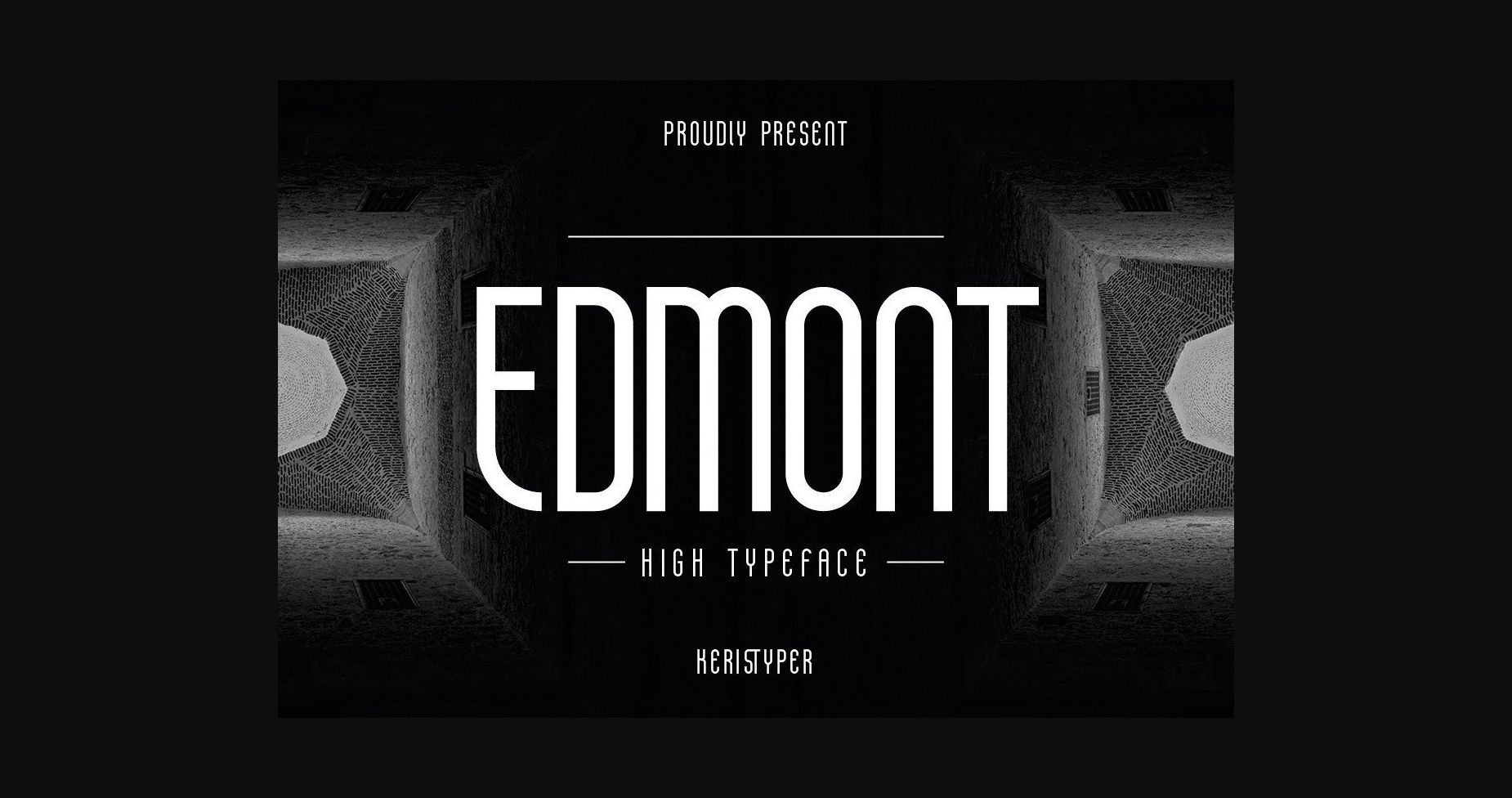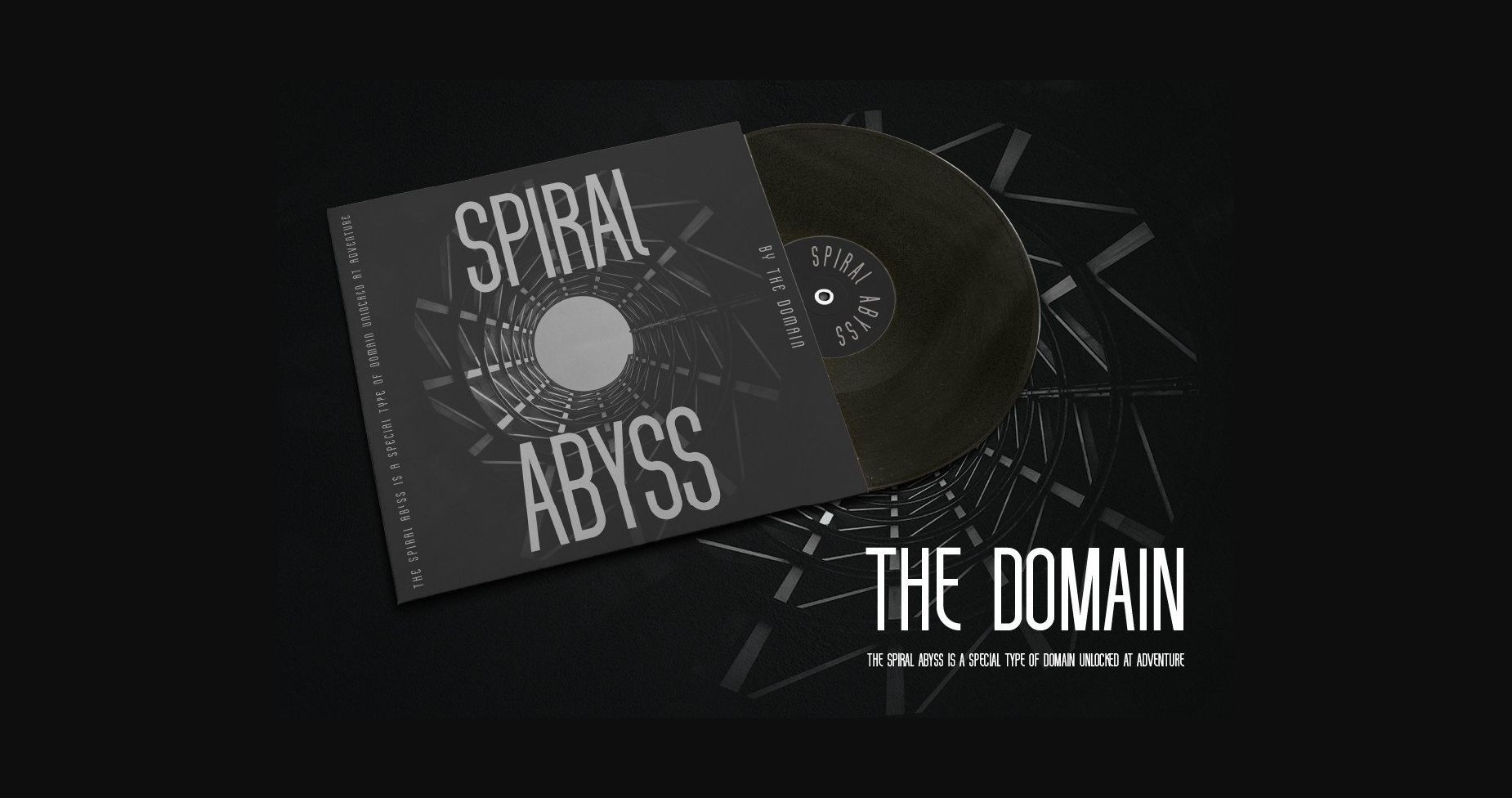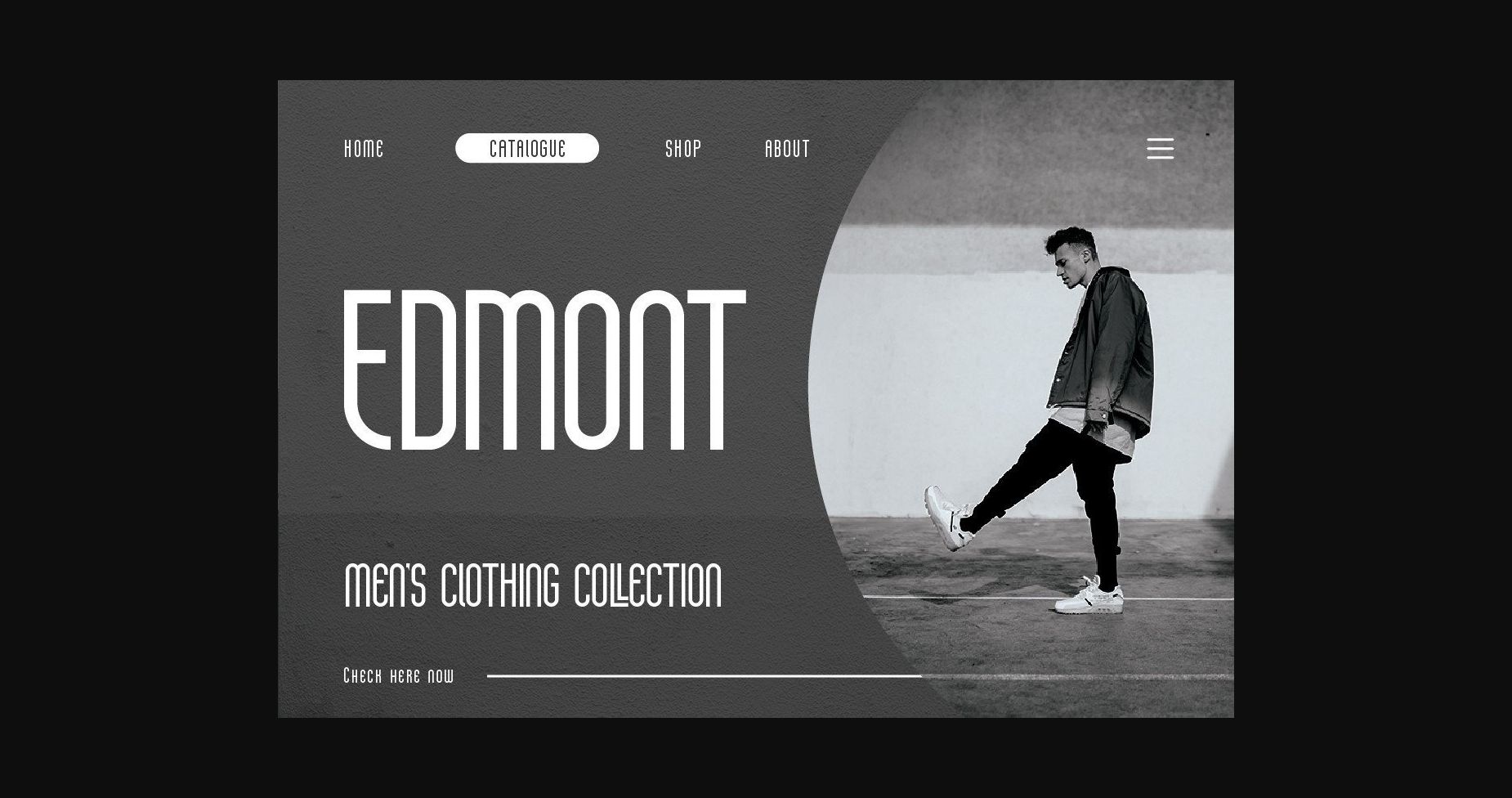
About Edmont Font
Introducing Edmont is a vertical high and tall typeface that’s great for headlines. This font is good for logo design, Social media, Movie Titles, Books Titles, short text even long text letters, and good for your secondary text font with sans or serif.